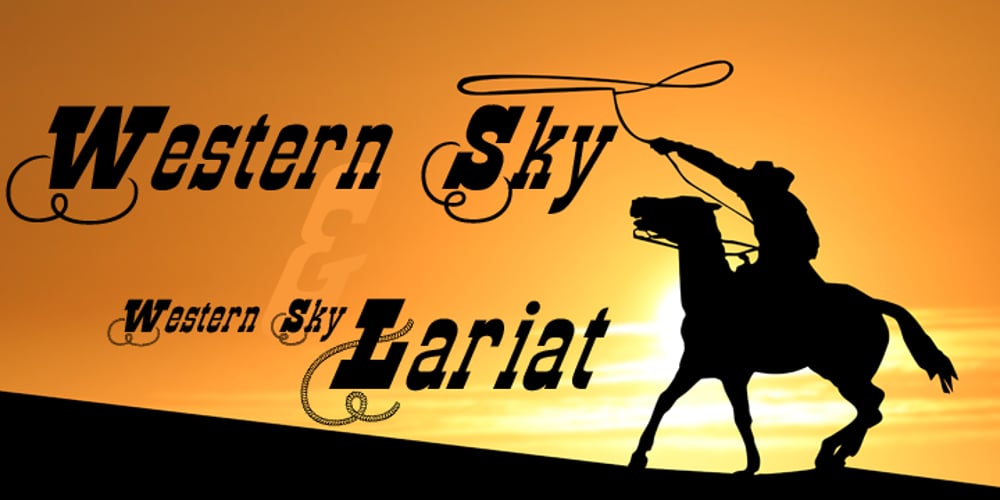
Western Sky
Western Sky font
Western Sky Font Family was designed by Michael Hagemann and published by FontMesa. Western Sky contains 2 styles and family package options. Western Sky is a revival of a late 1800s Italian font known as Italian Slab Fancy or Dodge City. New to this font is the rope swash version.